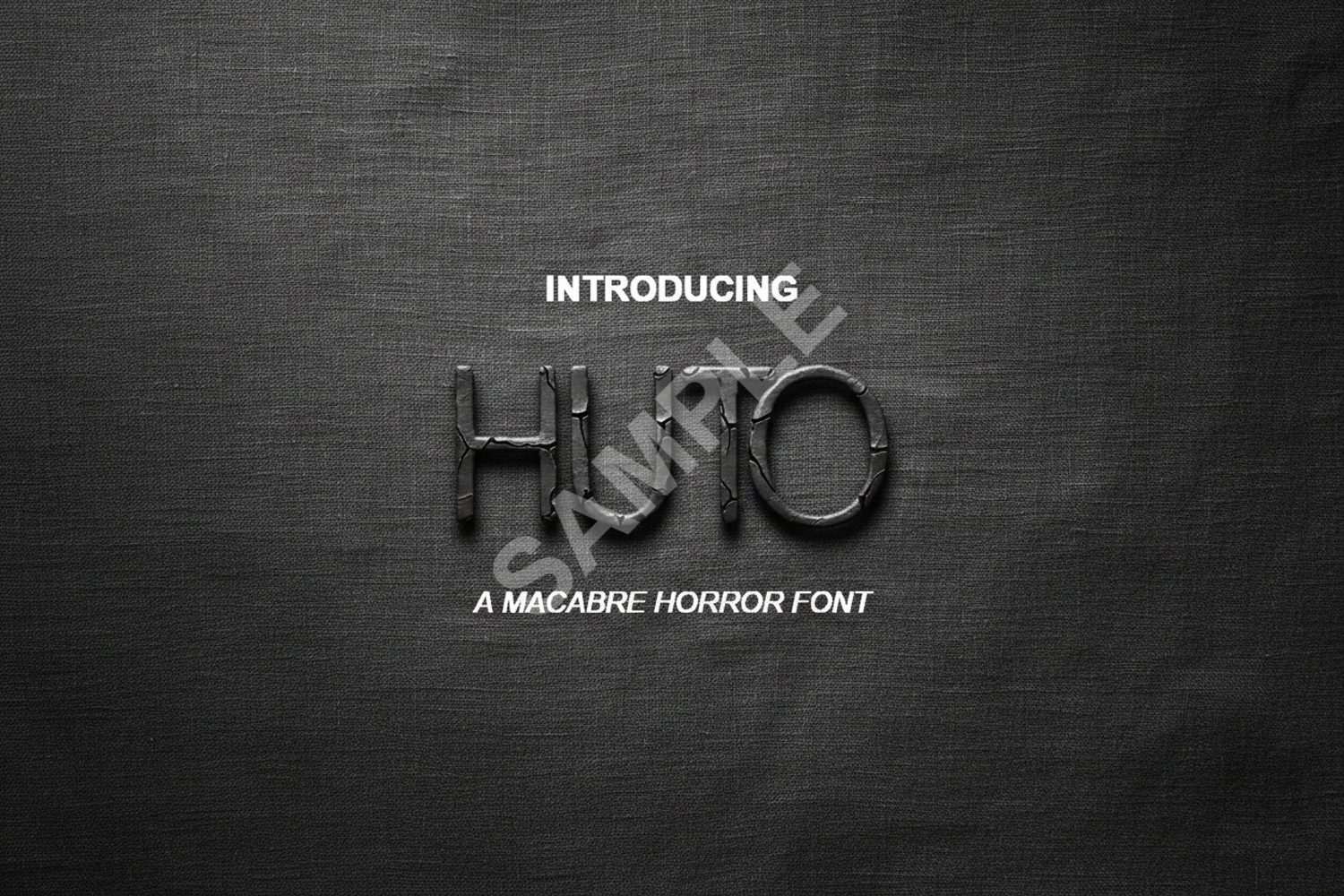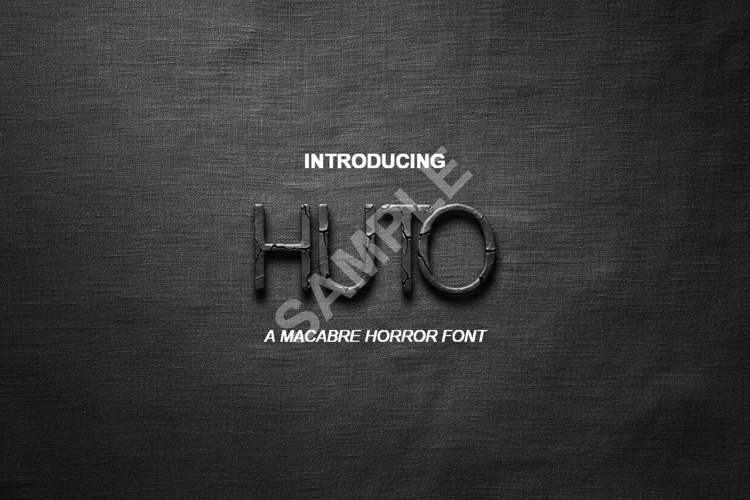
Huto - Modern Minimalist Sans Serif
Huto
Huto is a premium sans serif typeface designed with modern aesthetics and clean lines in mind. Its balanced proportions and versatile weights make it an essential tool for any designer looking to create a sophisticated and professional look. Whether you are working on high-end branding or a minimalist website, Huto provides the clarity and elegance your project deserves. This font is meticulously crafted to ensure high legibility across both digital and print mediums.